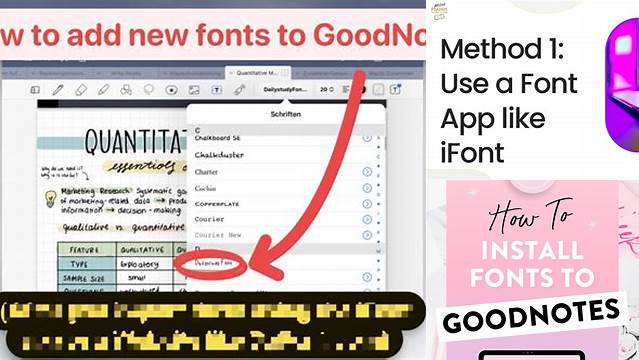
Best Free Fonts For GoodNotes On IPad: A Guide
Hey guys! Are you looking to spice up your GoodNotes experience on your iPad? One of the best ways to do that is by using custom fonts. GoodNotes is an amazing app for note-taking, planning, and journaling, but the default fonts can sometimes feel a bit… well, boring. The right font can make your notes not only more visually appealing but also more personalized and enjoyable to create. Let’s dive into the world of free fonts for iPad GoodNotes and how you can make the most of them.
Why Use Custom Fonts in GoodNotes?
Custom fonts can significantly enhance your note-taking experience in GoodNotes. Why bother with custom fonts? First and foremost, they allow you to personalize your notes. Instead of being stuck with the default options, you can choose fonts that reflect your personality and style. This can make the process of note-taking more enjoyable and engaging, which is always a win!
Aesthetic Appeal: Let’s be honest, looks matter! A well-chosen font can make your notes visually appealing. Whether you’re going for a minimalist, elegant, or playful look, the right font can help you achieve it. Visual appeal isn’t just about aesthetics; it can also improve readability. Notes that are easy on the eyes are more likely to be reviewed and remembered.
Improved Organization: Different fonts can be used to create a visual hierarchy in your notes. Use a bold font for headings, a script font for quotes, and a clean sans-serif for body text. This helps you organize your thoughts and makes it easier to find important information at a glance. Think of it as visual coding for your notes!
Enhanced Readability: Some fonts are simply easier to read than others. Choosing a font that is clear and legible can reduce eye strain and make your notes more accessible, especially during long study sessions or work projects. This is particularly important if you plan to share your notes with others.
Brand Consistency: If you’re using GoodNotes for professional purposes, custom fonts can help you maintain brand consistency. Using the same fonts in your notes as you do in your other materials can reinforce your brand identity and create a cohesive look. For example, if you use a particular font on your website or in your marketing materials, using it in your GoodNotes documents can help reinforce your brand’s visual identity. This is particularly useful for entrepreneurs, educators, and professionals who want to maintain a consistent image across all their work.
Finding Free Fonts for iPad
Finding great free fonts for your iPad is easier than you might think. Where can you find these fonts? Numerous websites offer a wide variety of fonts that you can download and use in GoodNotes. Here are some of the best resources to get you started:
Google Fonts: Google Fonts is a treasure trove of free, open-source fonts. The best part? They are all completely free for personal and commercial use. The site is easy to navigate, and you can preview fonts in different sizes and styles before downloading them. Plus, Google Fonts are optimized for the web, so they look great on screens of all sizes.
DaFont: DaFont is another popular resource for free fonts. It has a vast collection of fonts, ranging from basic to more decorative styles. Keep in mind that while many fonts on DaFont are free for personal use, some may require a license for commercial use, so always check the licensing information before using a font in a project.
FontSpace: FontSpace offers a wide variety of free fonts, with a user-friendly interface that makes it easy to find what you’re looking for. You can filter fonts by category, style, and license type, making it a breeze to find the perfect font for your needs. Like DaFont, be sure to check the licensing terms for each font.
Creative Fabrica: While Creative Fabrica is a subscription-based service, they often offer free fonts as part of their promotional deals. Keep an eye on their website for these freebies. Creative Fabrica is known for high-quality fonts and graphics, so it’s worth checking out their free offerings.
Using custom fonts in GoodNotes can transform your note-taking experience. It allows you to personalize your notes, improve organization, and enhance readability. By following the steps outlined in this guide, you can easily find, install, and use free fonts in GoodNotes. So go ahead, explore the world of fonts, and make your notes truly your own!